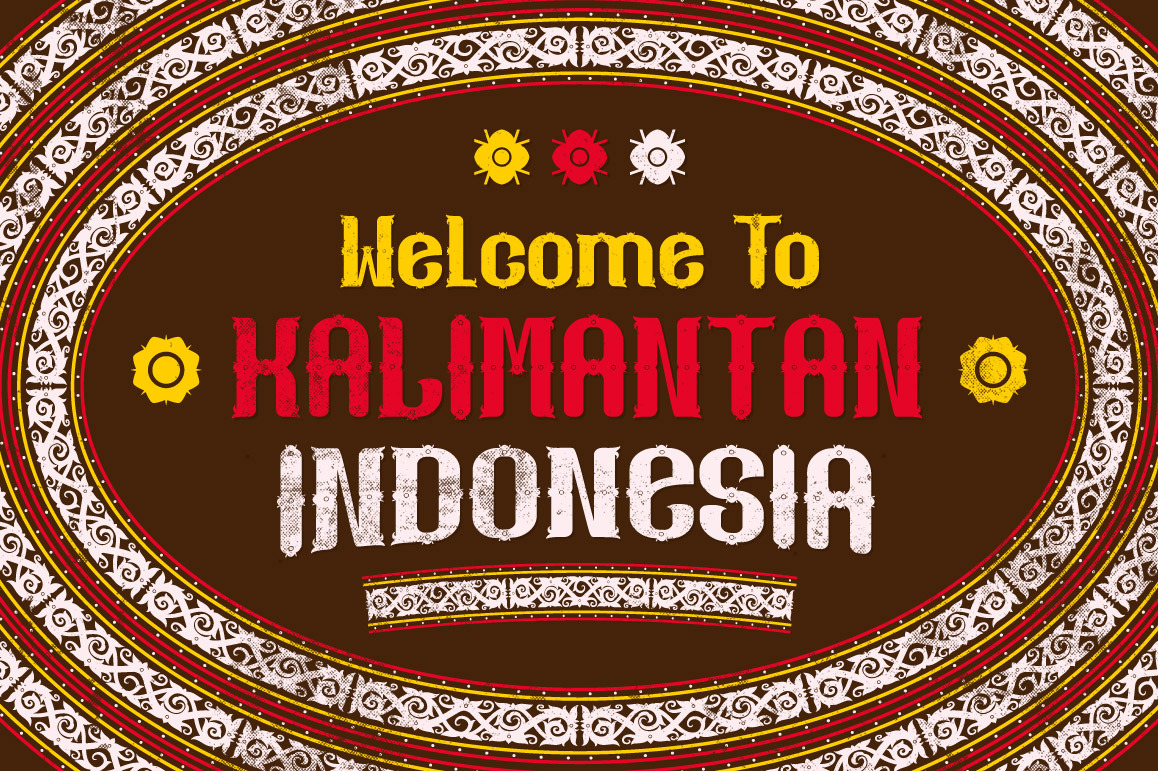
Kalimantan Typeface
Kalimantan font is typeface which was inspired from dayak (kalimantan/borneo) ethnic tattoo. See more preview on my Behance bit.ly/1gw5gUi Credit beach background I used here http://www.fontplay.com/freephotos/beach.htm